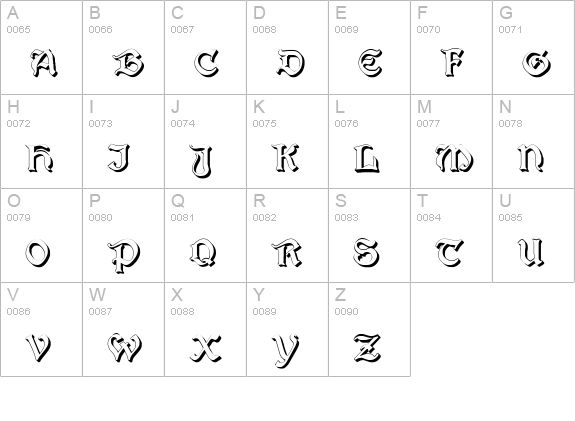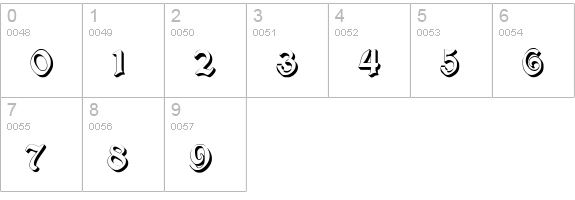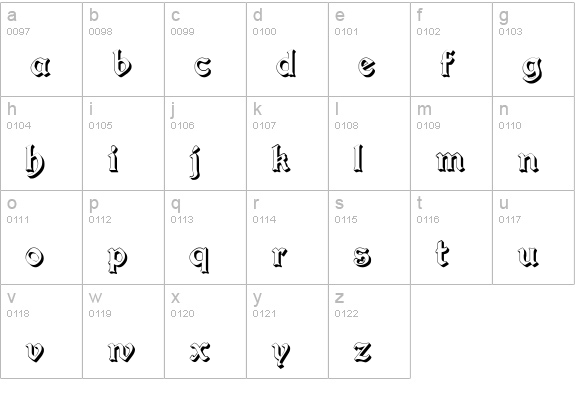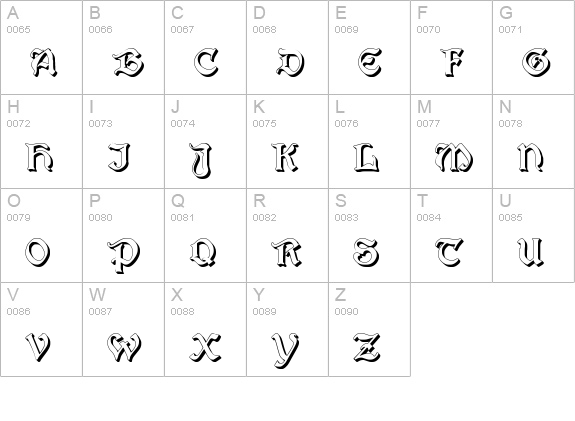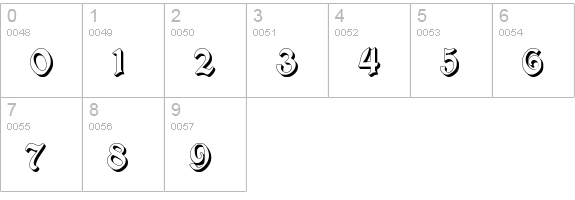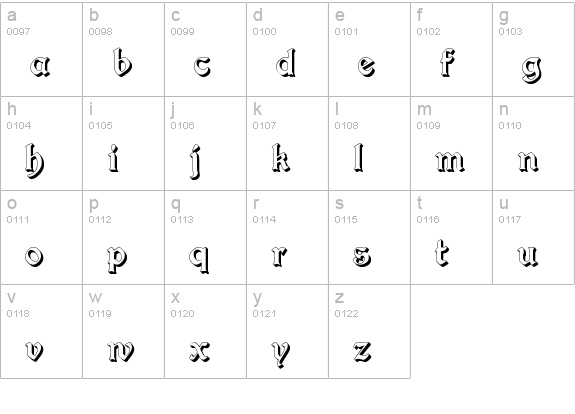
Augusta Shadow Font Details
Augusta Shadow font is a stylish and elegant typeface that exudes sophistication and class. Its intricate design features a delicate shadow effect that adds depth and dimension to each letterform. The flowing curves and sharp edges of Augusta Shadow create a harmonious balance, making it a versatile choice for a wide range of design projects. This exquisite font is perfect for adding a touch of luxury to invitations, branding materials, signage, and more. Whether you're looking to create a modern and sleek look or a vintage-inspired design, Augusta Shadow has you covered. Its timeless appeal and attention to detail make it a standout choice for anyone seeking to elevate their visual creations. Best of all, Augusta Shadow font is available for free download at FontsMarket.com. This means you can easily access this premium typeface without any cost, making it a valuable addition to your font collection. Don't miss out on the opportunity to enhance your designs with the beauty and elegance of Augusta Shadow font.